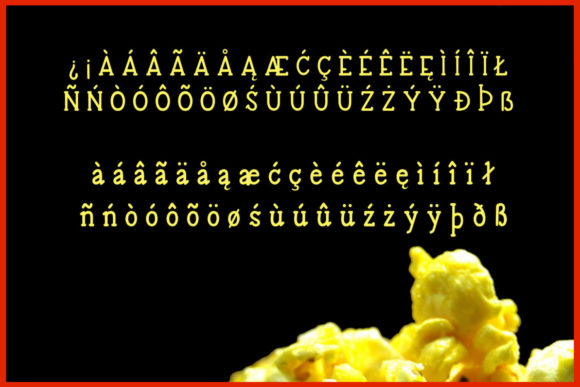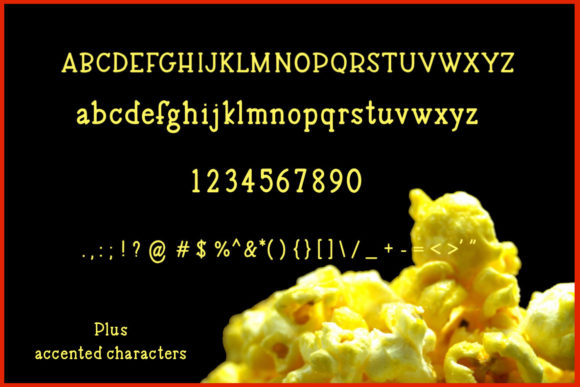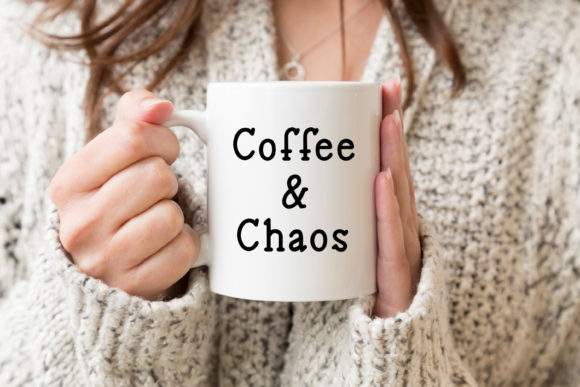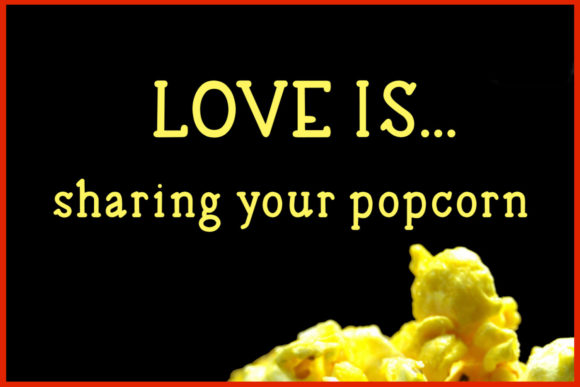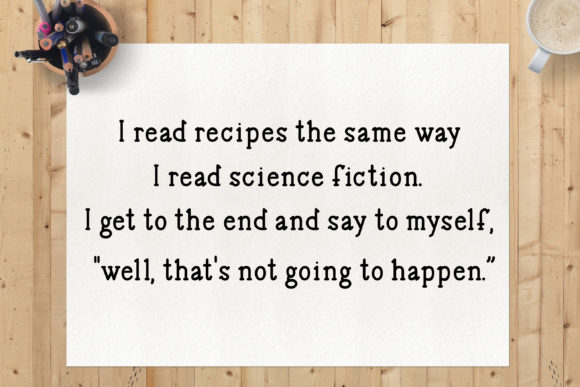
The Cuteness Overload: Discovering the Buttered Popcorn Font
I still remember the design project that led me to discover the Buttered Popcorn font. I was working on a fun kids’ party invitation, and my client specifically asked for a font that was ‘cute, playful, and reminiscent of a movie night.’ I scoured through my font library, but nothing seemed quite right. That’s when I stumbled upon Buttered Popcorn, and it instantly became the star of the show! ✨
An Honest Review: The Good and the Quirky
What I Love About Buttered Popcorn
- ✨ The font’s handwritten serif style radiates cuteness and fun, making it perfect for projects that need a playful touch.
- ✅ It’s surprisingly versatile and can be used for titles, headings, and even short paragraphs.
- 💕 The unique character set and OpenType features allow for a high degree of customization.
While Buttered Popcorn is an amazing font, it’s not without its quirks. 🤔 Some users might find that:
- ⚠️ The font can be a bit overbearing when used for long blocks of text. It’s best suited for headings and short paragraphs.
- ⚠️ Some characters, like the lowercase ‘l’ and ‘t’, can be a bit tricky to read when used in smaller sizes.
One of the best things about Buttered Popcorn is its OpenType features and glyphs. You can access these by:
Some of the stylistic alternates and glyphs you can find in Buttered Popcorn include:
| Glyph | Description |
| Swashes | Flourishing swashes that add a touch of elegance to your text. |
| Stylistic Alternates | Alternate characters that offer a different take on the original font. |
The Story Behind Buttered Popcorn
While the true origins of Buttered Popcorn are shrouded in mystery, it’s said that the font was inspired by the nostalgic charm of old movie theaters. The designer, who wishes to remain anonymous, wanted to capture the magic of a warm, buttery bucket of popcorn on film. And so, Buttered Popcorn was born – a font that’s equal parts whimsical and wonderful.
Q: What is the best use case for Buttered Popcorn?
A: Buttered Popcorn is perfect for projects that need a playful, whimsical touch, such as kids’ party invitations, movie night flyers, or social media graphics.
Q: Is Buttered Popcorn a difficult font to read?
A: While Buttered Popcorn is a decorative font, it’s surprisingly legible, even at smaller sizes. However, it’s best used for headings and short paragraphs.